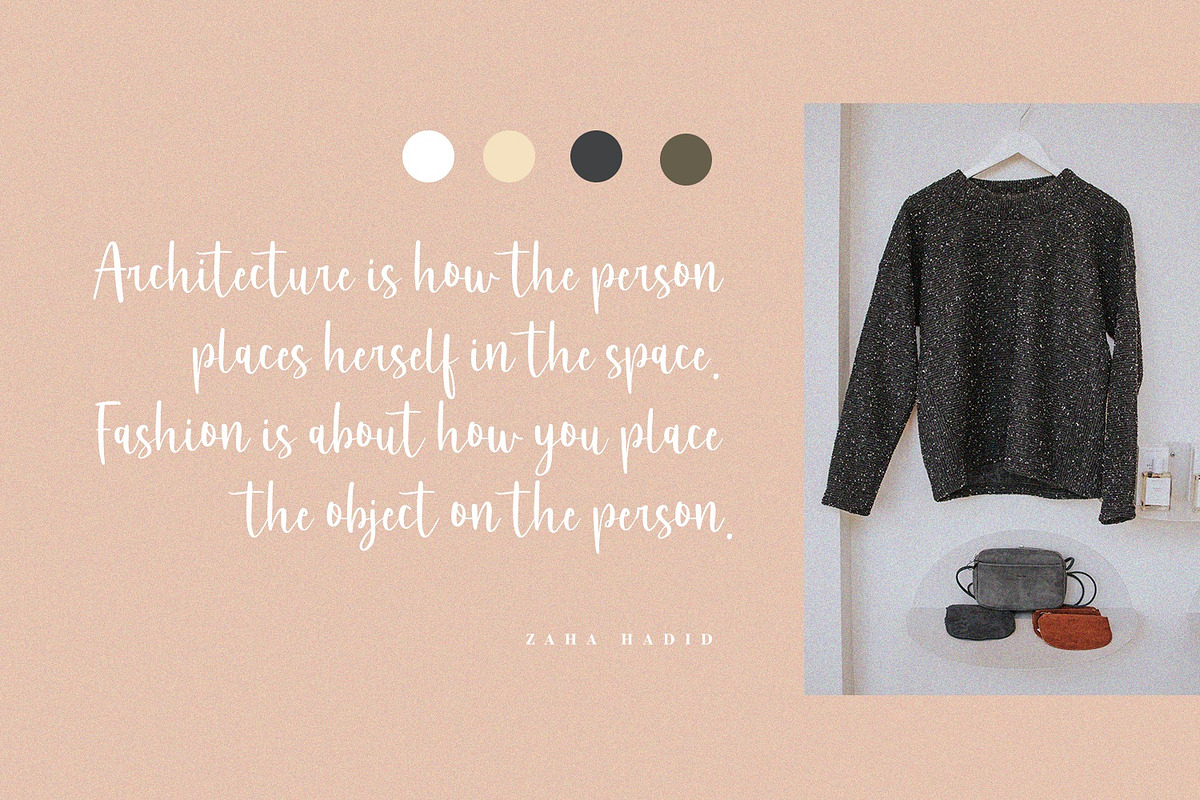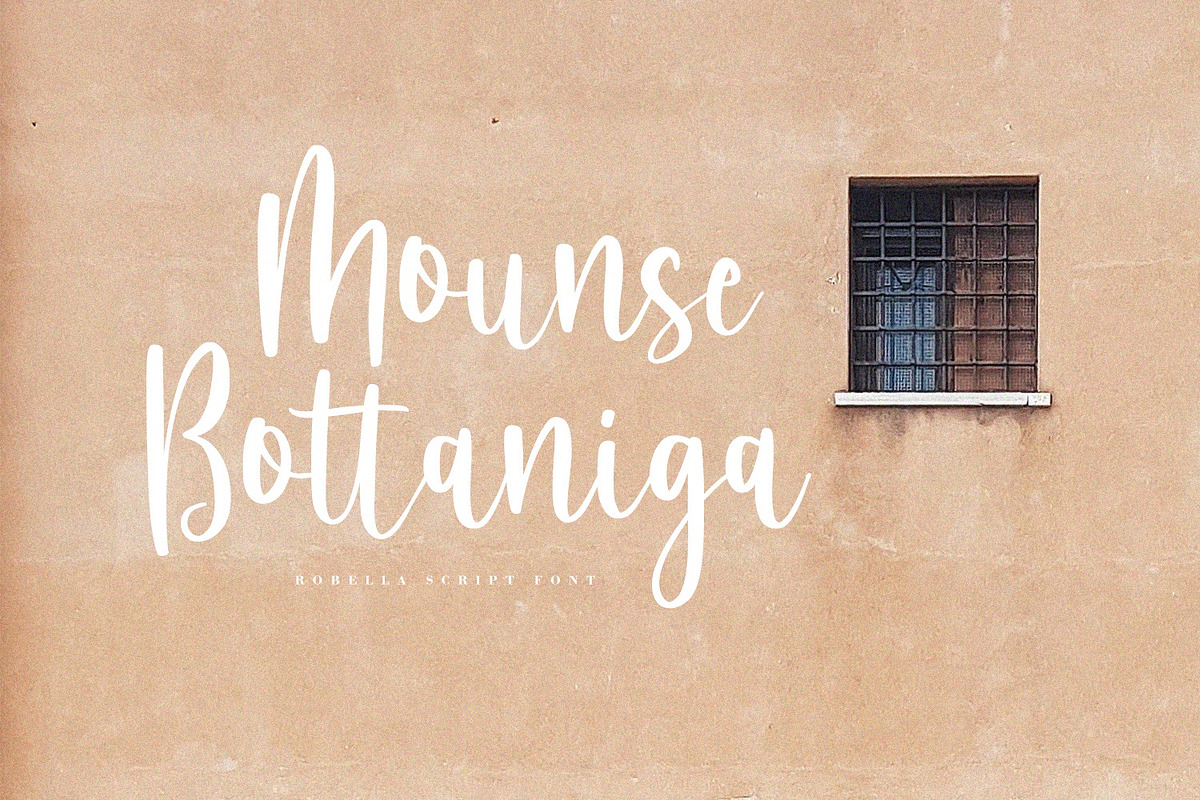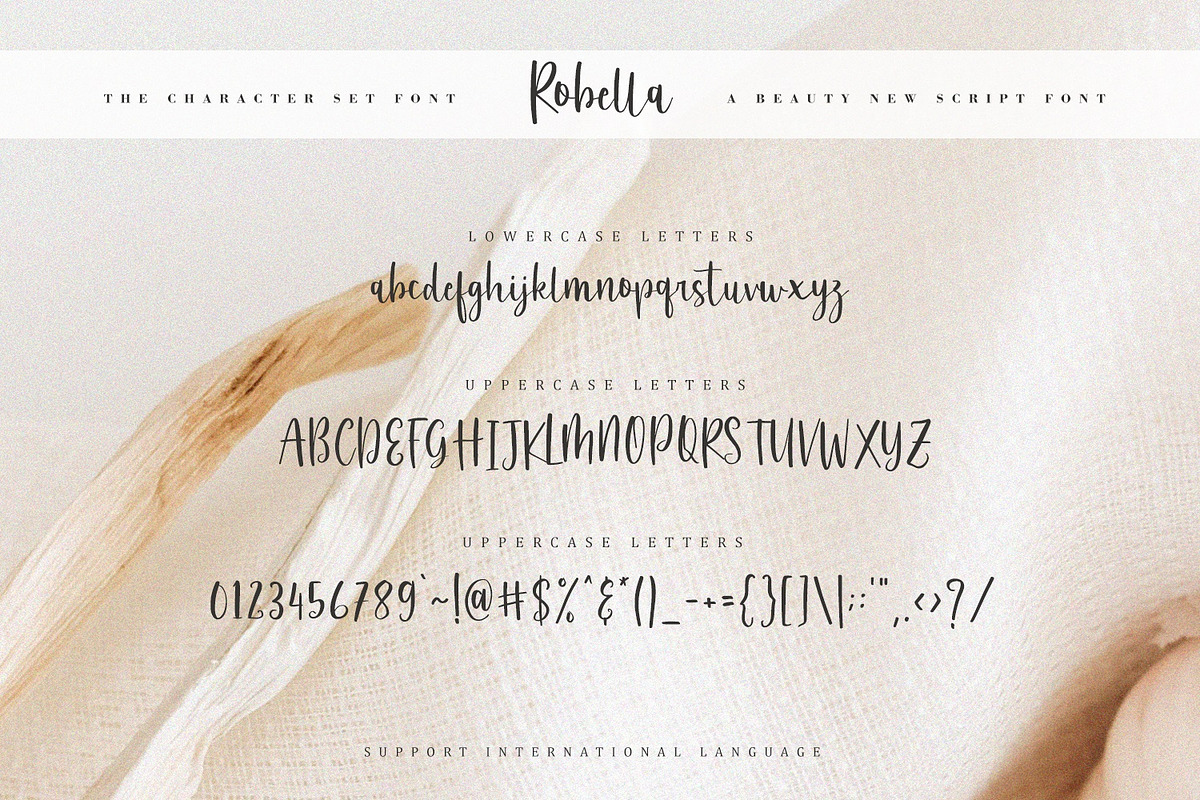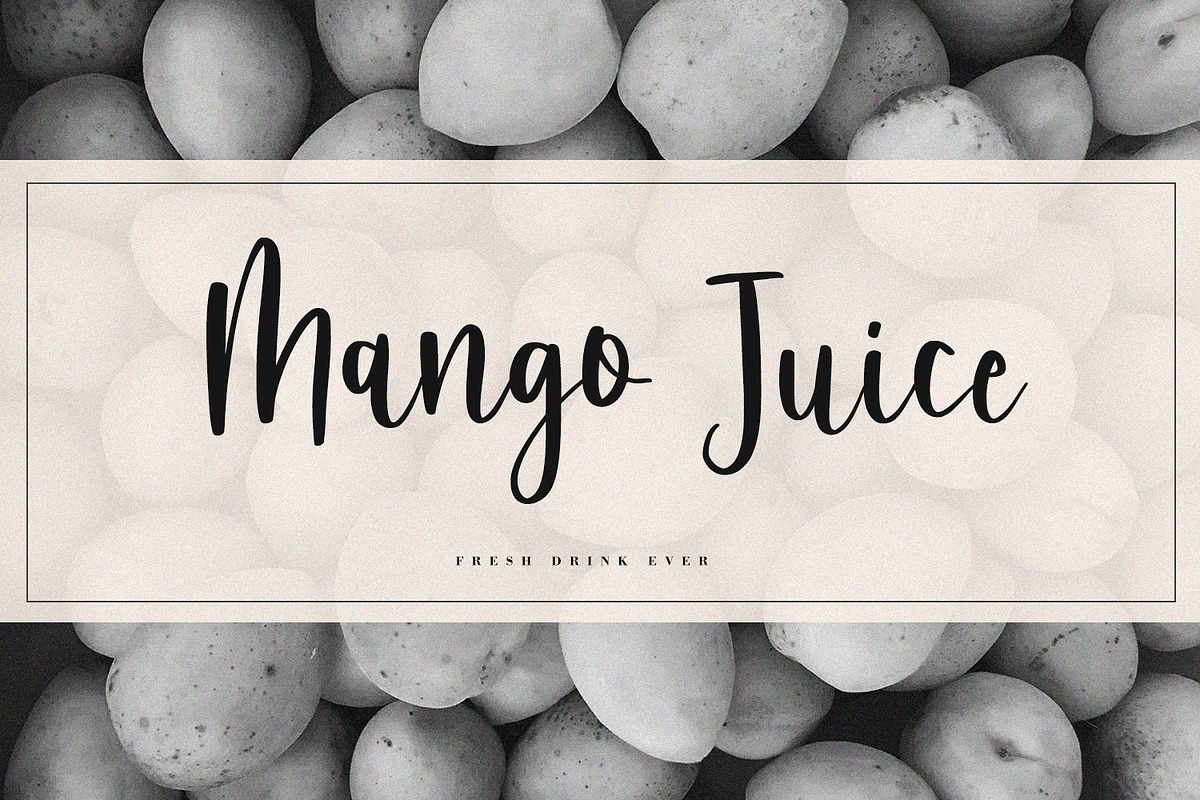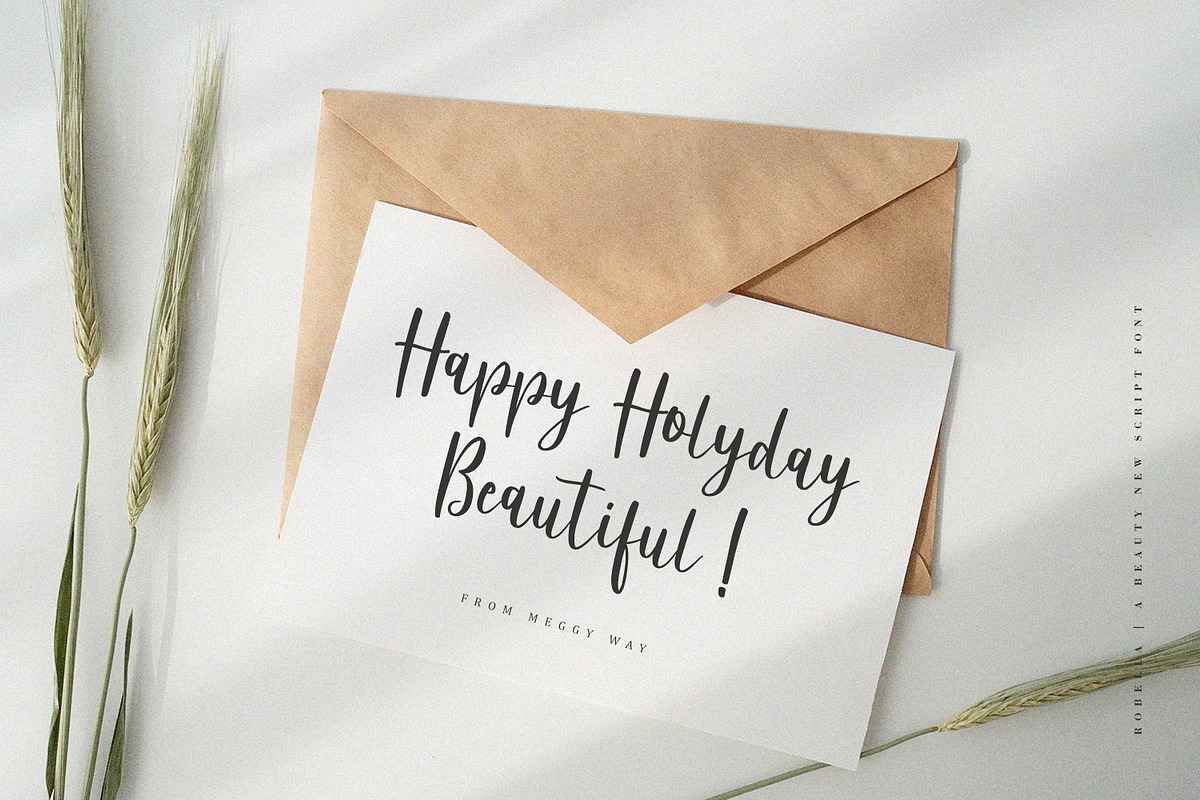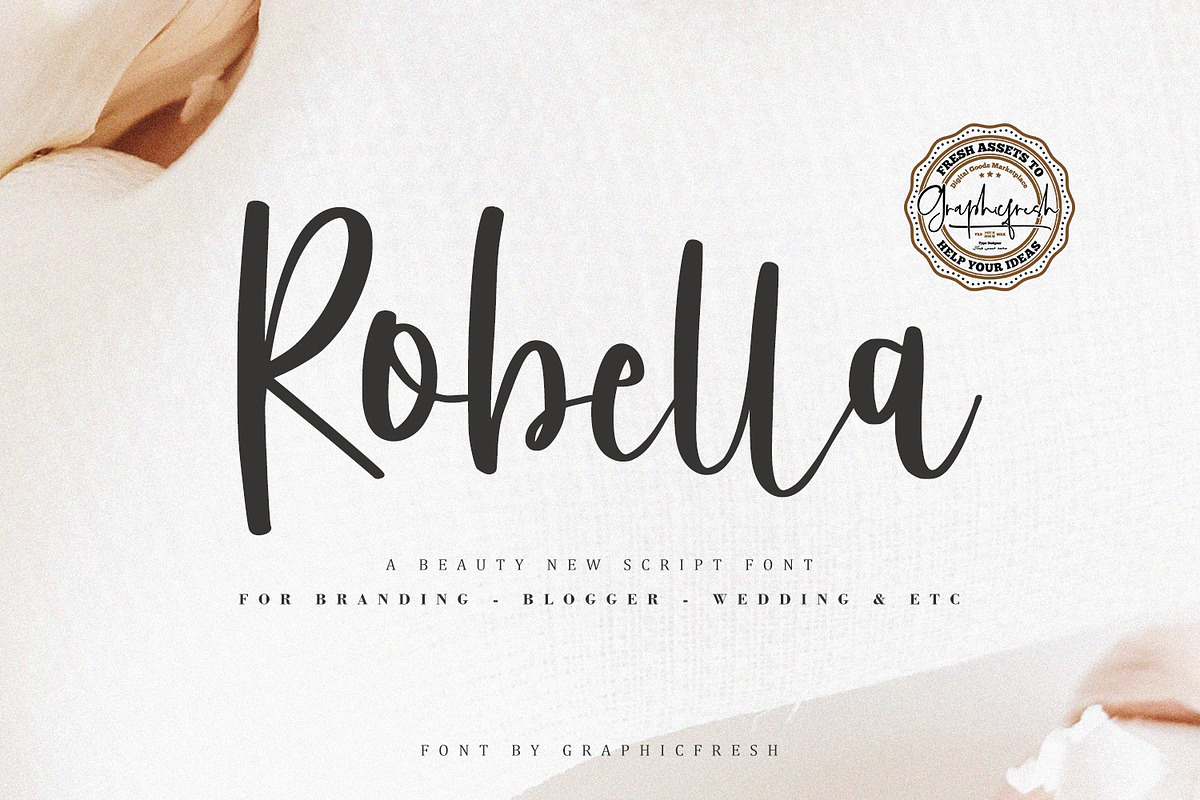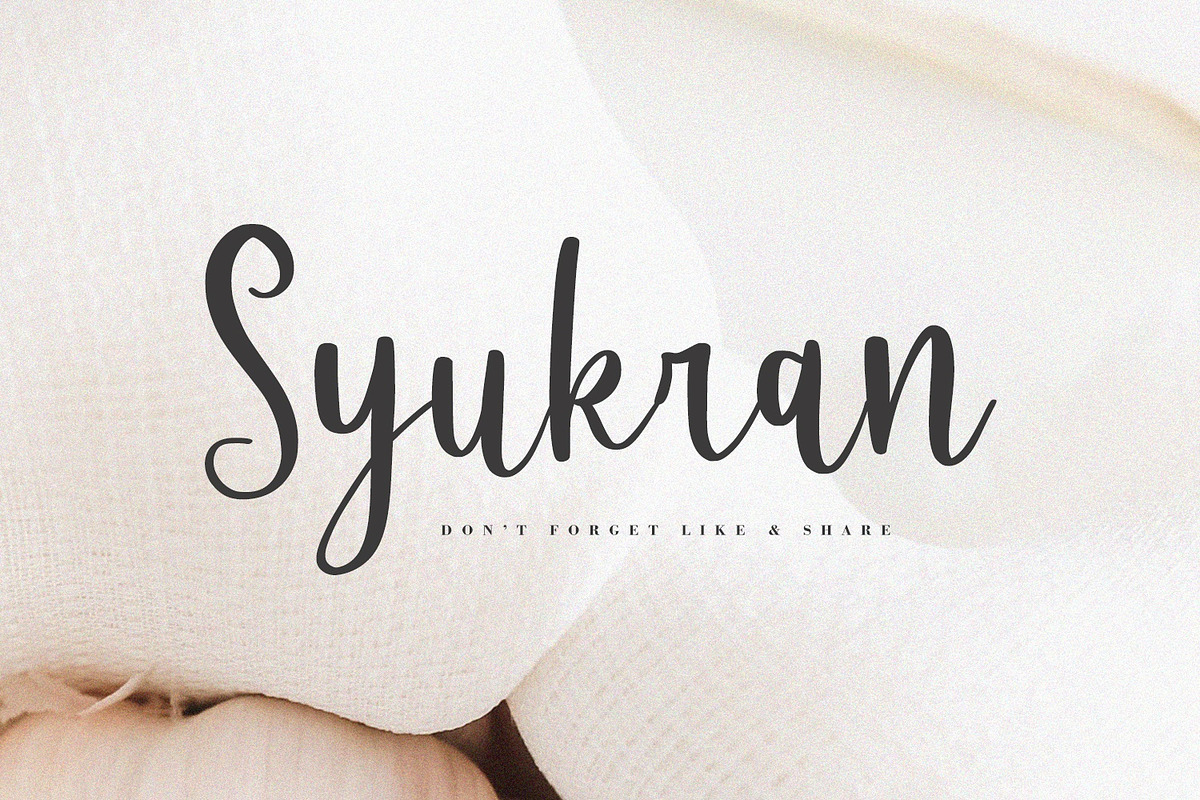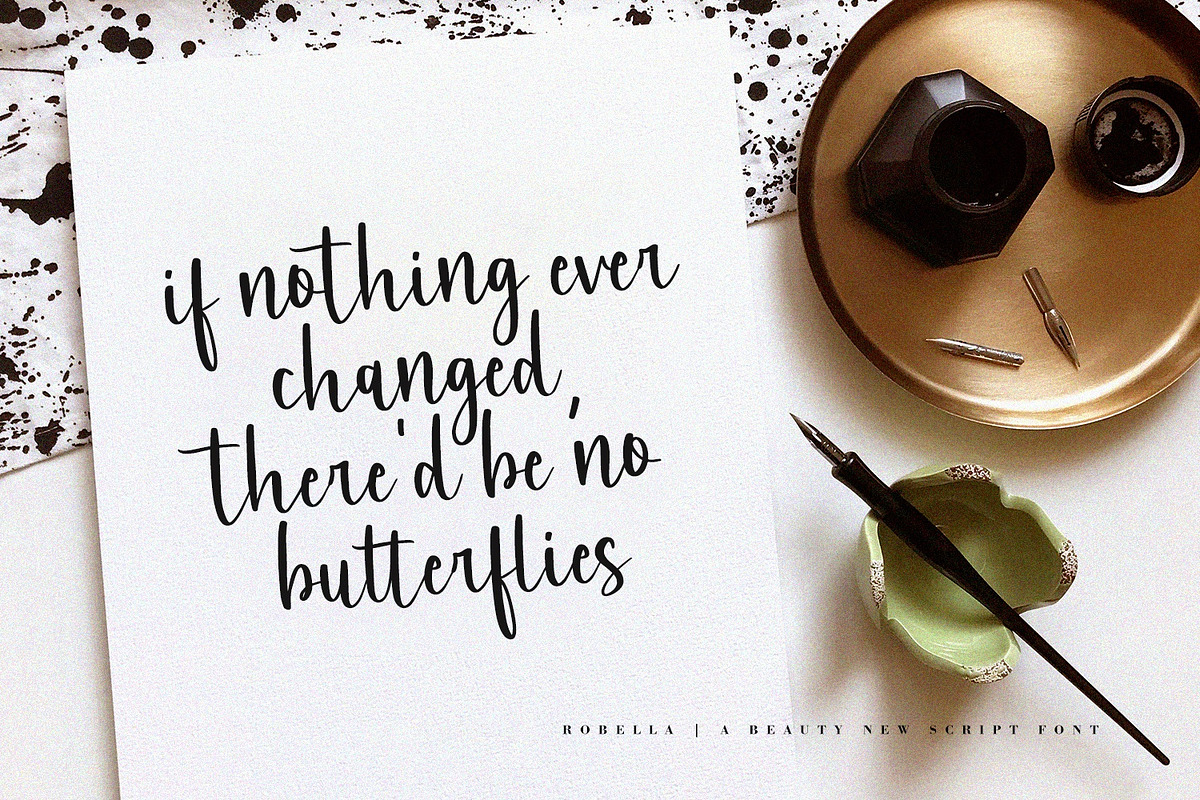
Robella // A Beauty Script Font
Robella // A Beauty Script Font. It comes with an elegant, cute and feminine style which is perfect to make any design stand out! This font is perfect for branding, wedding invites, magazines, mugs, business cards, quotes, posters, and more.
Suitable for Headlines, Logotypes, Signs, Posters, Letterhead, T-Shirt and many more.
Robella // A Beauty Script Font by Graphicfresh fits naturally into Branding, posters, packaging, typography.